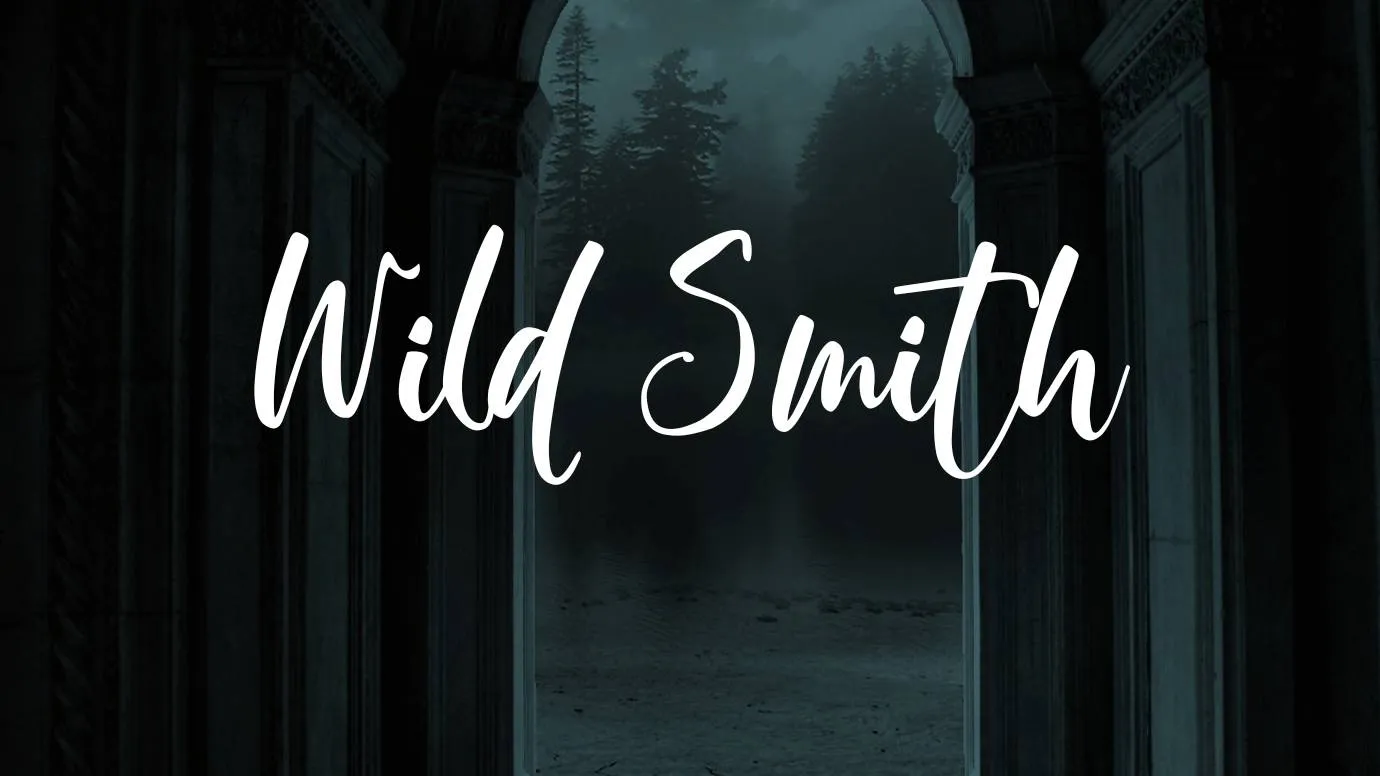
Wild Smith Font Family is a modern script-look font that comes with thin and bold swashes. The main and original designer of this texture is Lucky Type a famous font foundry. The thin swashes of this typeface make it more impressive.
Wild Smith Font